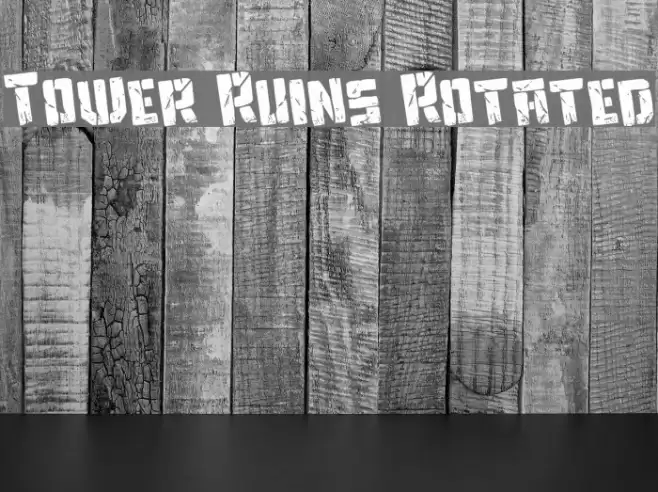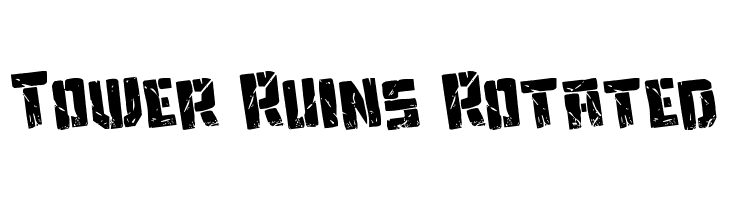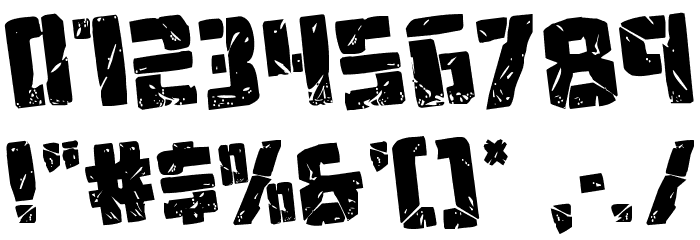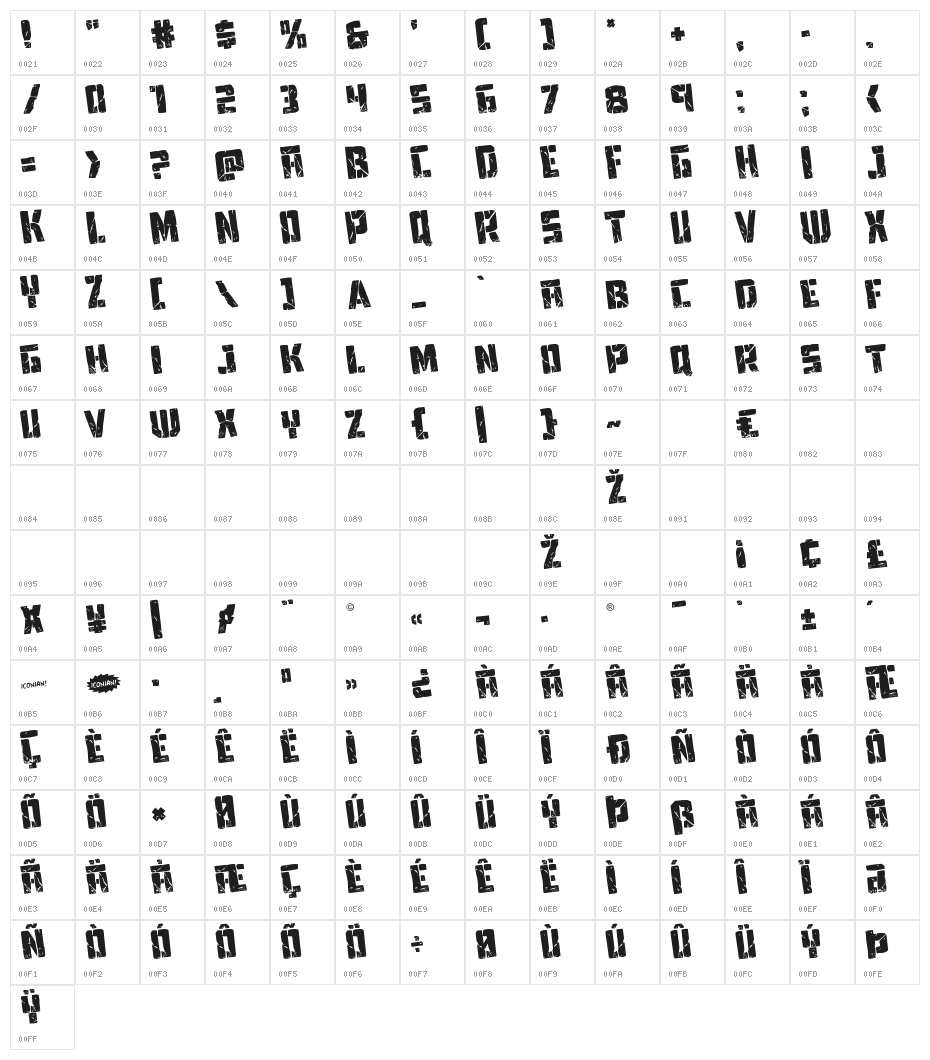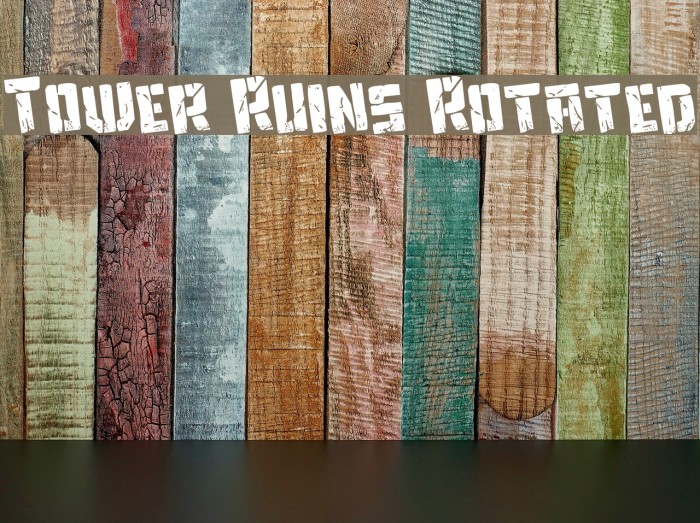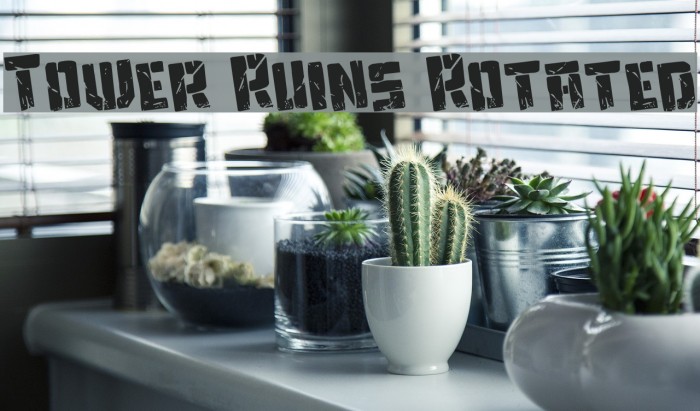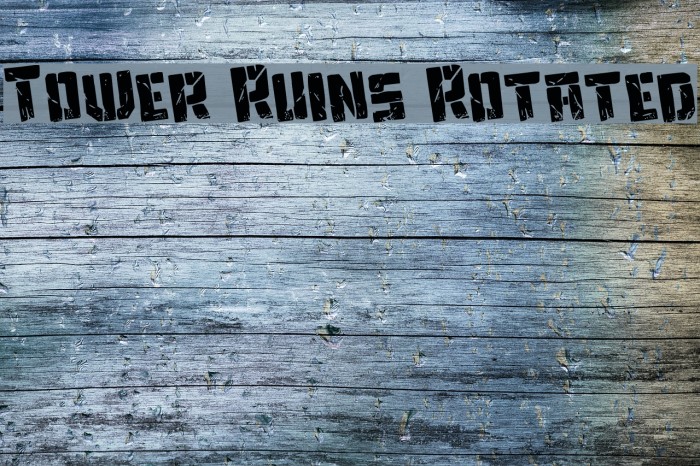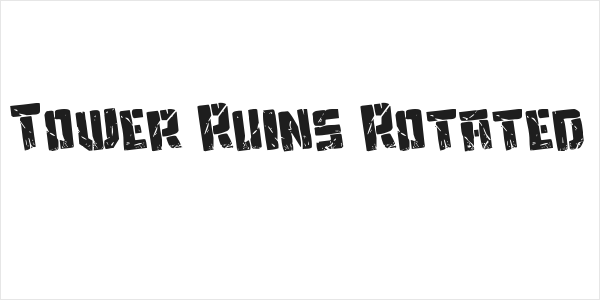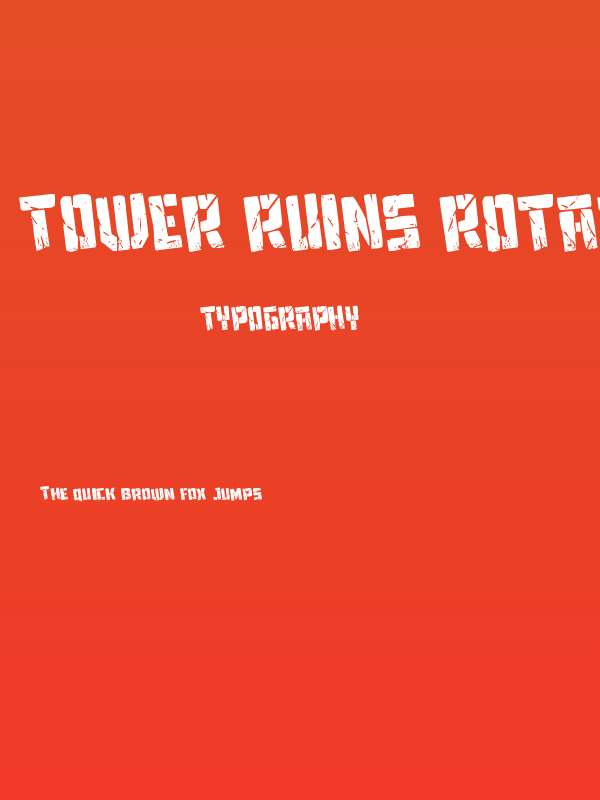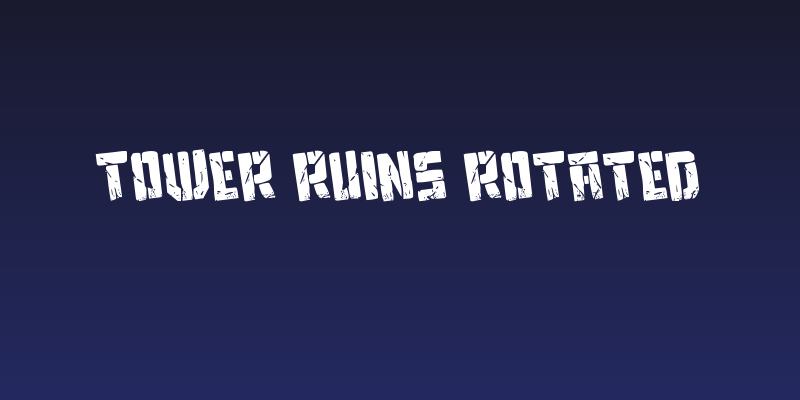
Tower Ruins Rotated Font
Tower Ruins Rotated Description
This font features a bold and rugged design, characterized by its distressed and eroded appearance. Each character appears as if it has been weathered over time, with irregular edges and a textured surface that mimics the look of crumbling stone or concrete. The uppercase and lowercase letters maintain a consistent style, providing a cohesive look across the alphabet. Numbers and special characters are similarly styled, ensuring uniformity throughout. The font's unique aesthetic makes it ideal for projects that require a gritty, industrial, or post-apocalyptic feel.
A bold, distressed font with a rugged, eroded appearance from Fancy fonts.